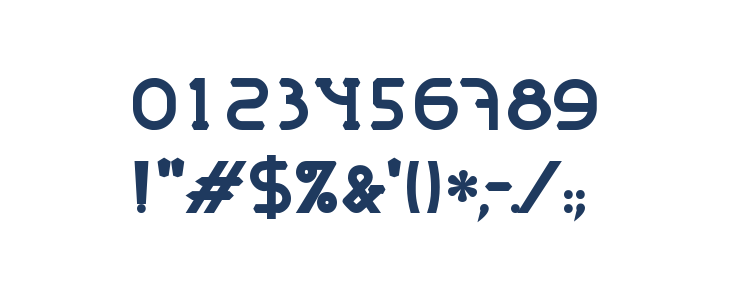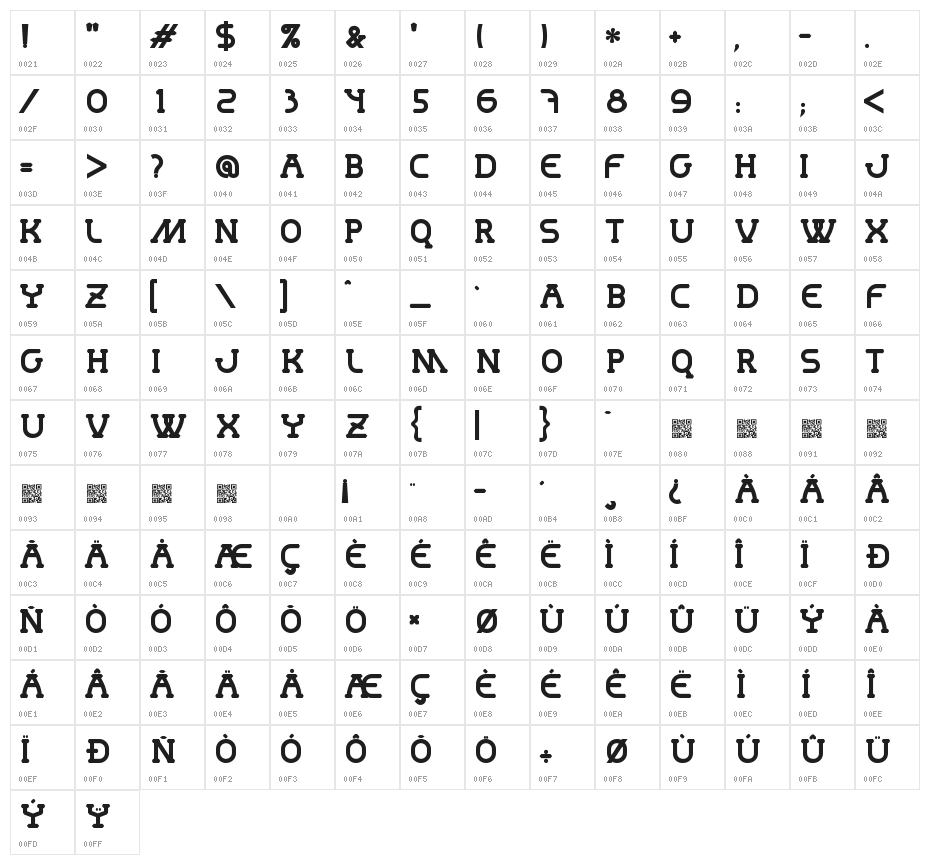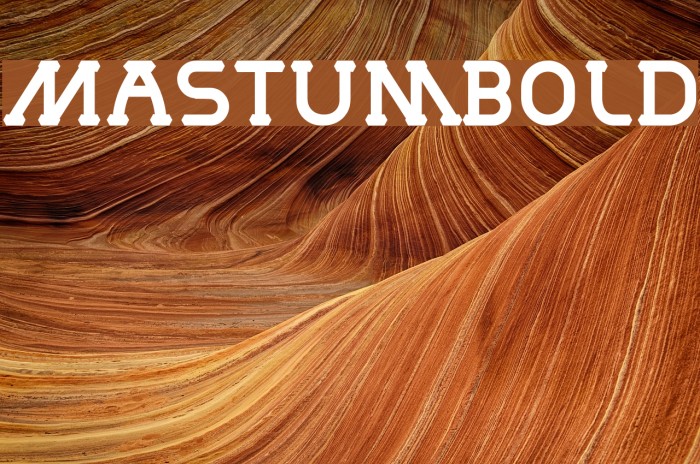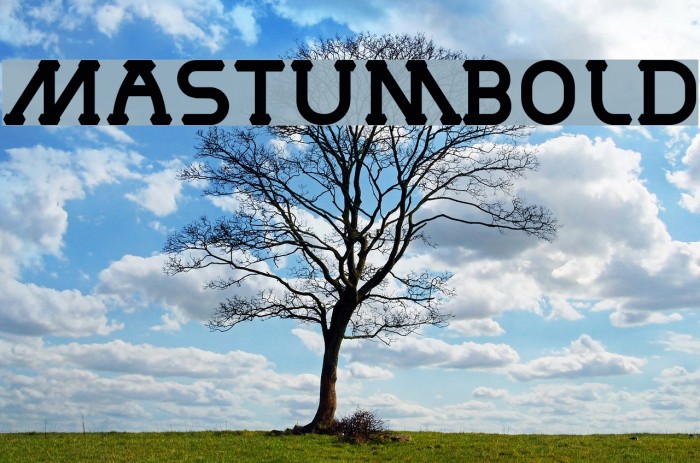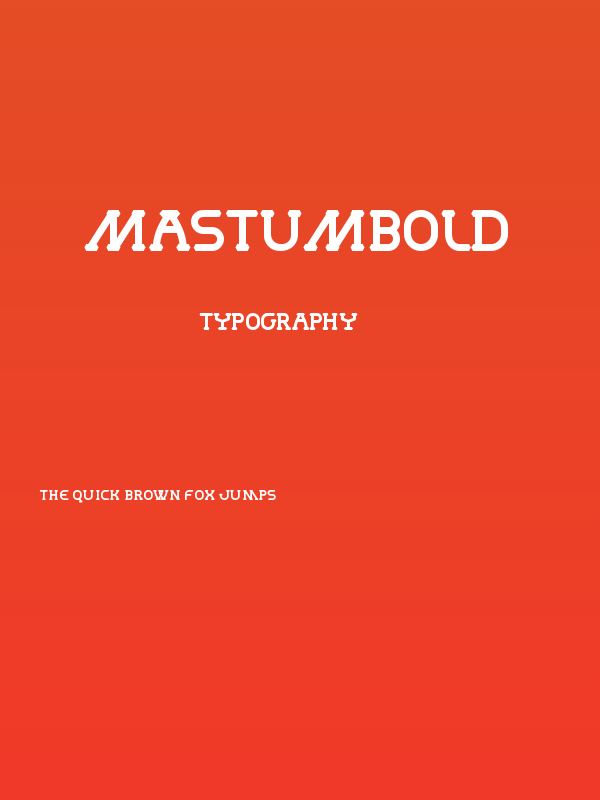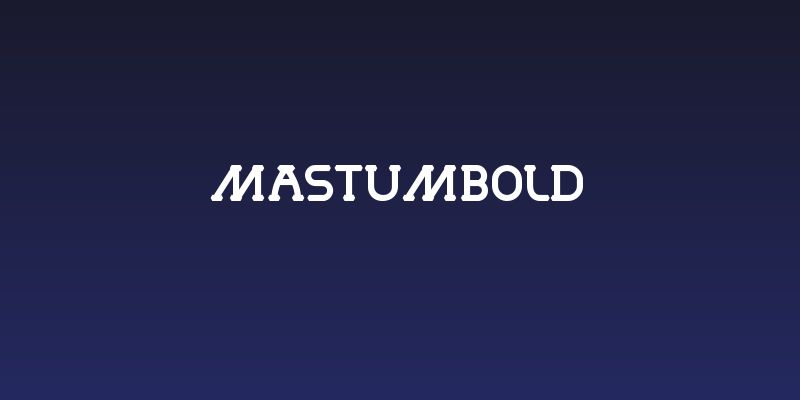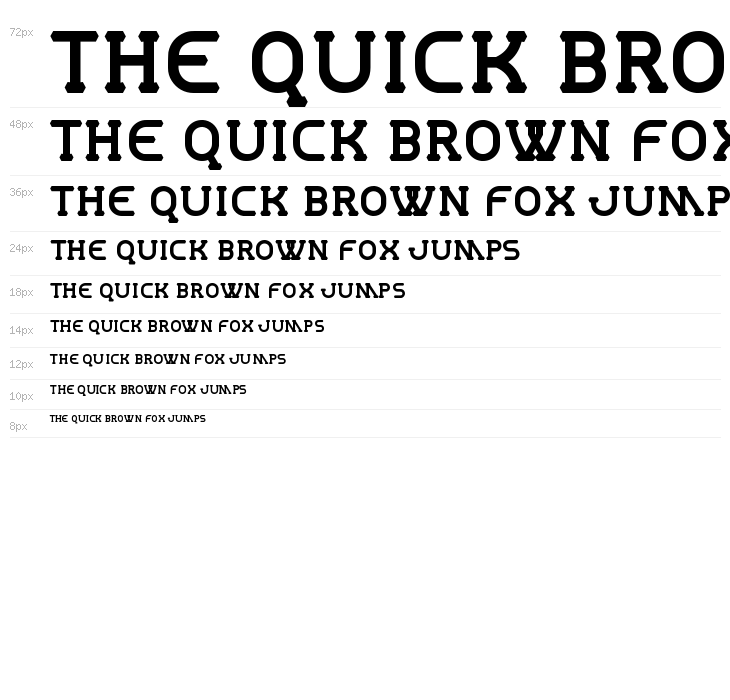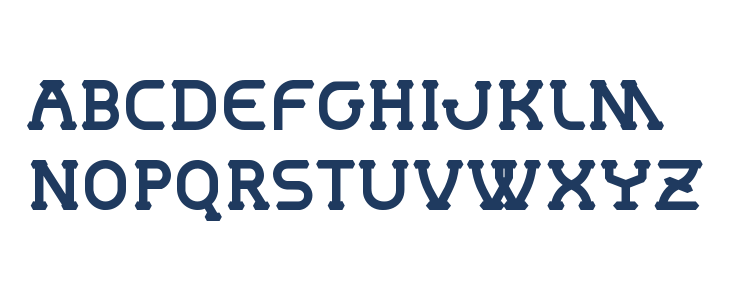
MastumBold Font
MastumBold Description
This font features a bold and distinctive design with a modern twist. The characters are crafted with a unique geometric style, incorporating rounded edges and sharp angles that create a dynamic and eye-catching appearance. The uppercase and lowercase letters maintain a consistent weight, providing a strong visual impact. Numbers and special characters are designed with the same boldness, ensuring uniformity across all text elements. The font's bold strokes and clean lines make it suitable for various design applications, offering a contemporary and innovative look.
| Proposed Projects | Ideal for branding, posters, headlines, and digital media where a strong visual presence is required. |